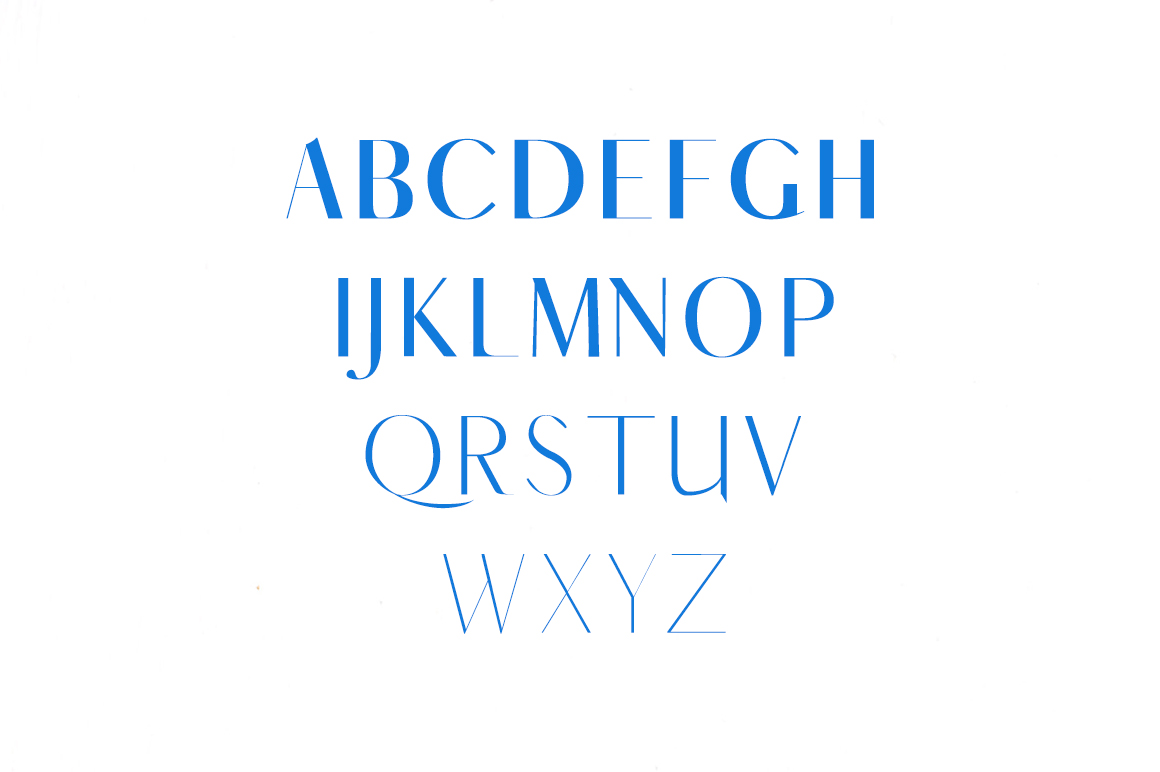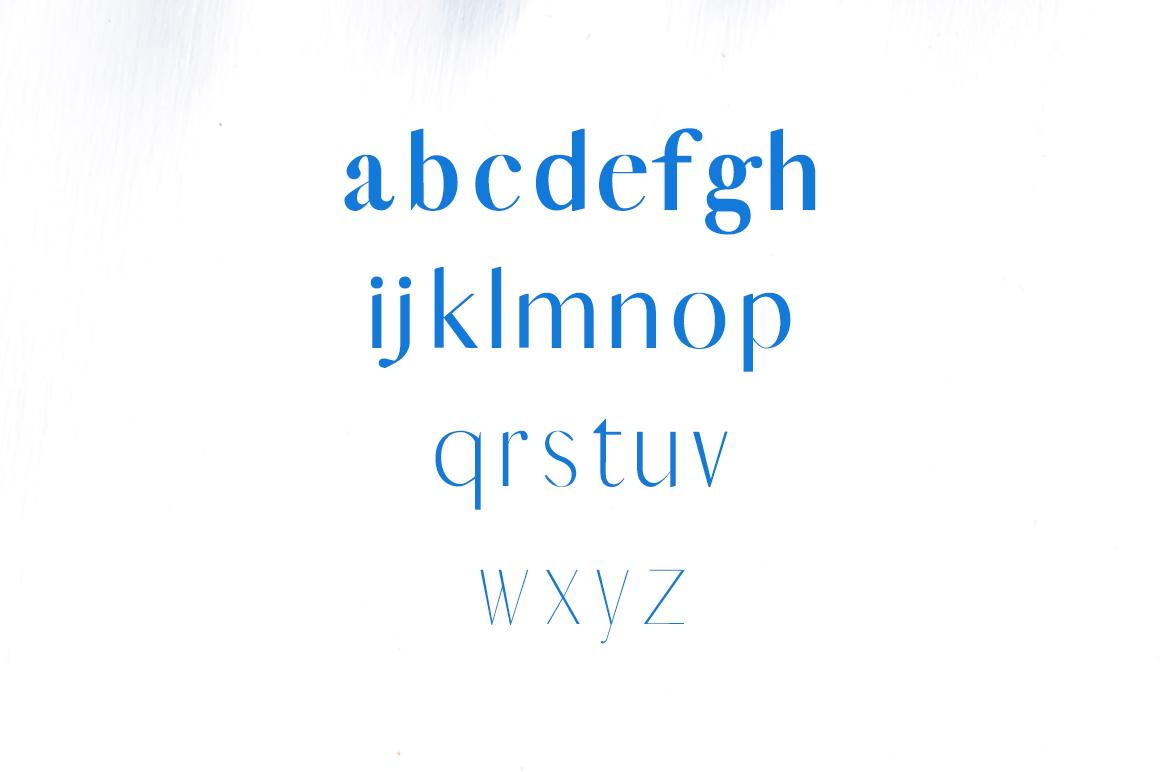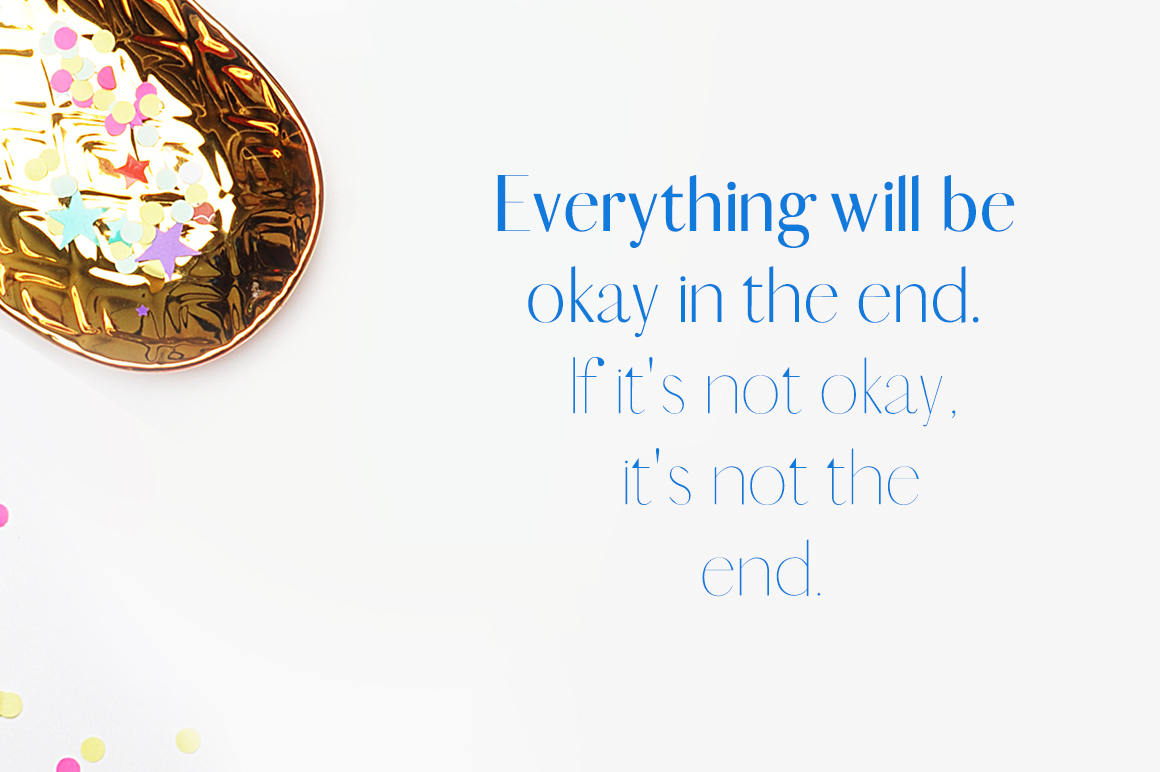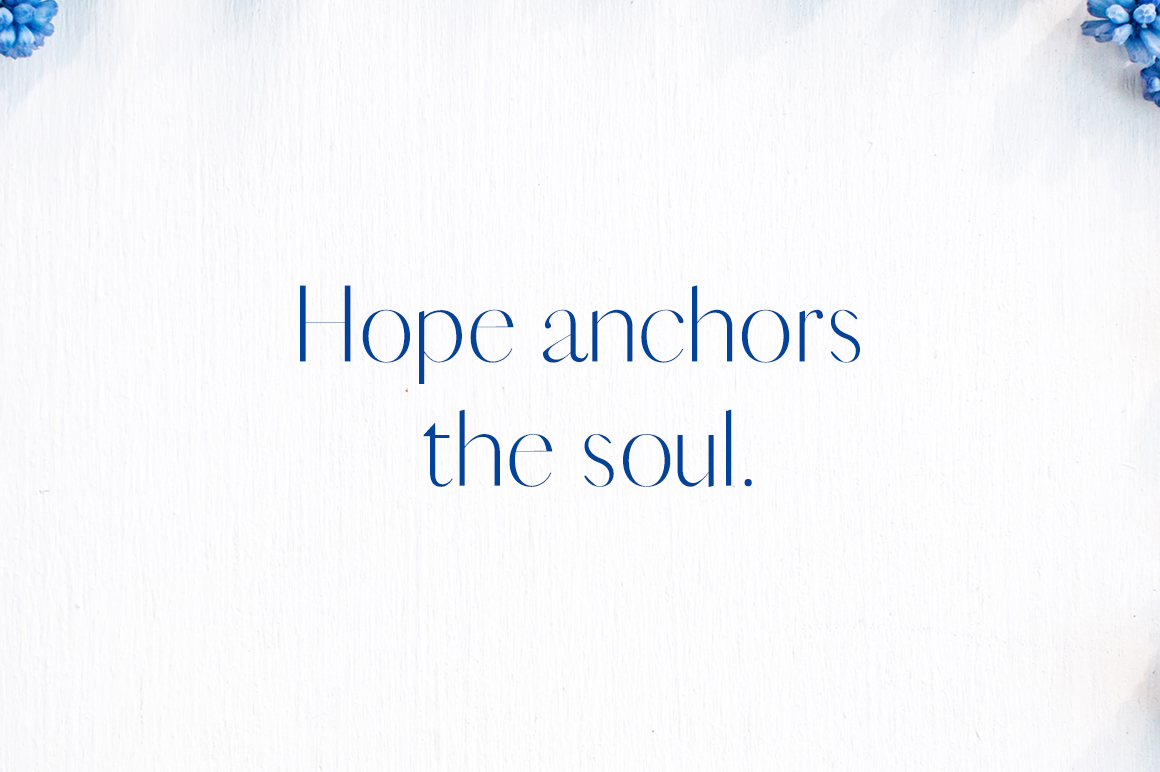
Unleash Your Creativity with Adenn Font
Have you ever been stuck in a design rut, scrolling through fonts, and nothing seems to spark that creative fire? We’ve all been there. But what if you stumbled upon the perfect font, one that elevates your design to new heights and leaves you feeling inspired? That’s exactly what Adenn Font is designed to do.
Adenn Font is a versatile sans serif typeface, crafted with precision and elegance. Its variable weights offer an endless array of style options, making it the perfect addition to any designer’s toolkit. Whether you’re working on a high-end branding project or a simple blog post, Adenn Font is sure to bring a touch of sophistication and refinement to your design. For designers, Adenn Font is a valuable asset, providing a reliable and stylish solution for any project that comes their way.
Key Features of Adenn Font
- Font Family: Adenn Font is a sans-serif font family designed for modern and clean typography.
- Unique Characteristics: Adenn Font features a unique blend of modern and minimalist design elements, including clean lines, rounded corners, and subtle curves.
- Font Styles: The font family includes a range of styles, including Light, Regular, Medium, Bold, and Extra Bold, providing flexibility for various design applications.
Review of Adenn Font
Overall, I have mixed feelings about the Adenn Font. As a designer, I appreciate its unique aesthetic and the effort that went into creating it.
- The Adenn Font’s modern and sleek design makes it perfect for contemporary designs and projects that require a touch of sophistication.
- The font’s versatility allows it to be used in various contexts, from digital displays to printed materials.
- The font’s unique character set, including its custom punctuation and numbers, adds an extra layer of personality to any design.
- The font’s readability can be a concern, especially at smaller font sizes or in certain contexts where the text is heavily condensed.
- The font’s design may not be suitable for projects that require a more traditional or classic look.
- The font’s custom character set can sometimes lead to inconsistencies in text rendering across different platforms or devices.
Overall, I would give the Adenn Font a rating of 3.5 out of 5. While it has its limitations, its unique design and versatility make it a great choice for designers looking to add a touch of modernity to their projects.
Getting the Most Out of Adenn Font
To get the most out of Adenn Font, try the following:
- Use Adenn Font in conjunction with other decorative fonts to create visually appealing contrast.
- Experiment with different font sizes and styles to create a unique and engaging design.
- Use Adenn Font for headings and titles to draw attention and create a clear hierarchy of information.
Adenn Font is commonly used for:
- Graphic design projects, such as posters and brochures.
- Typography-based art and illustrations.